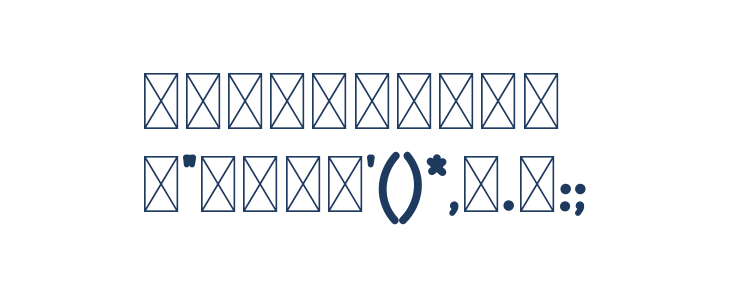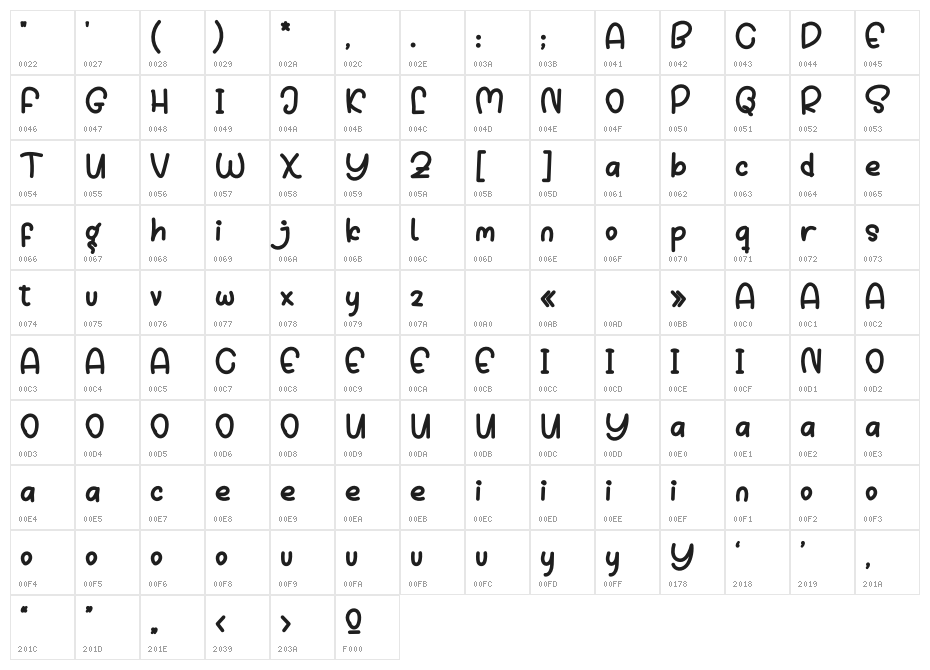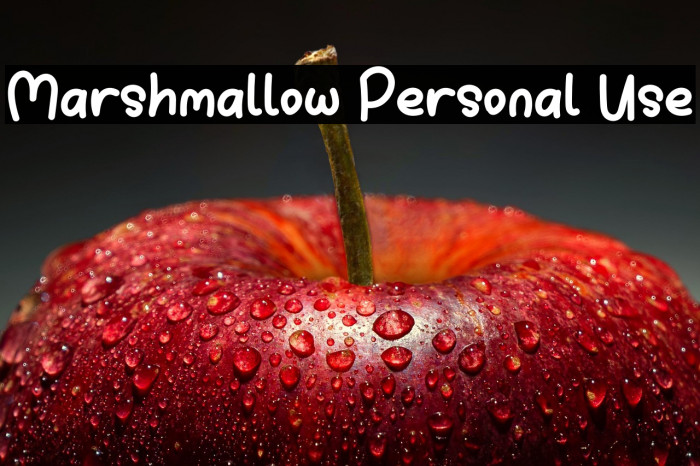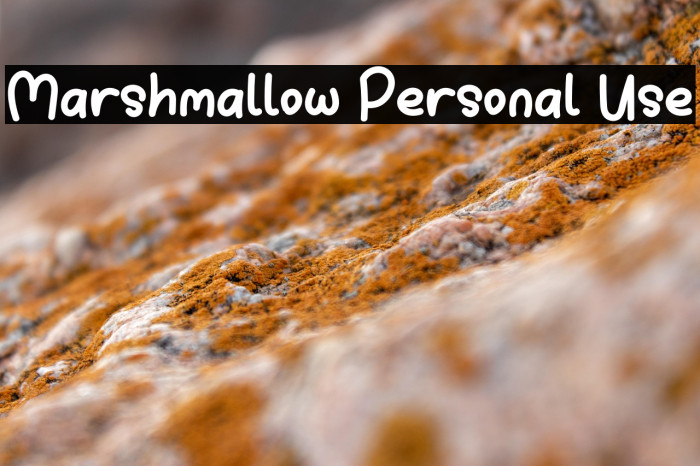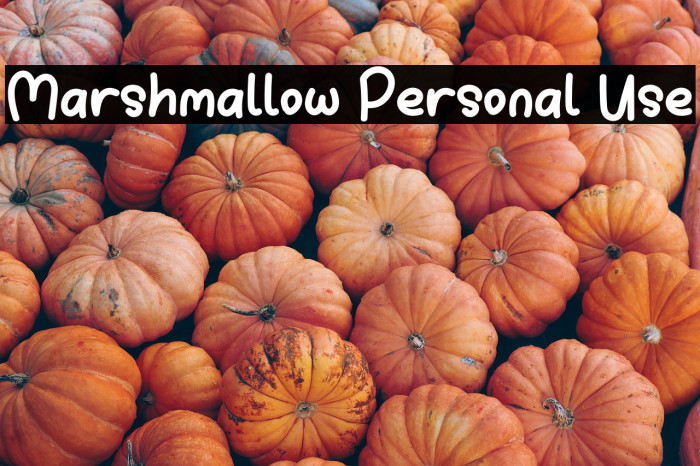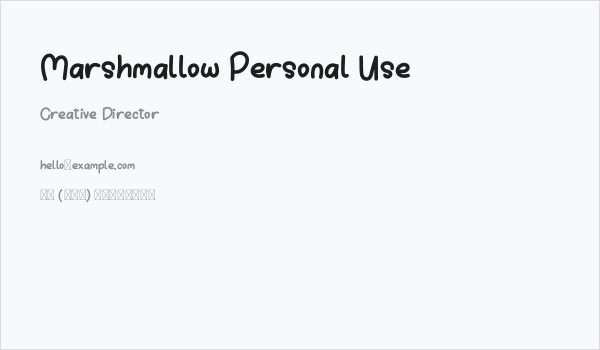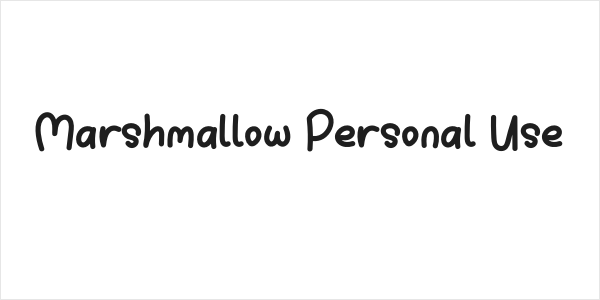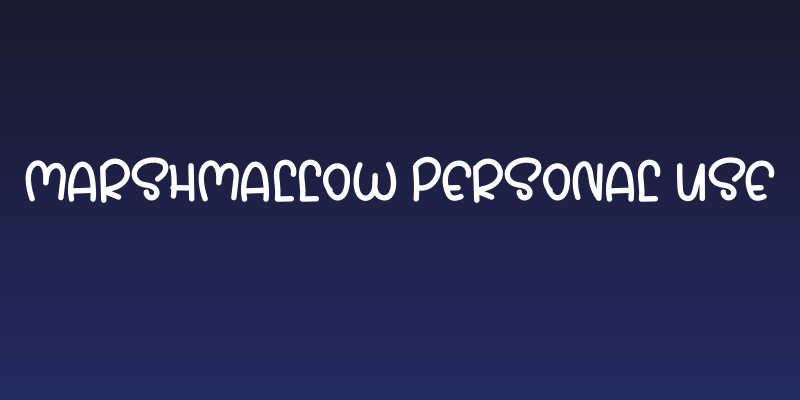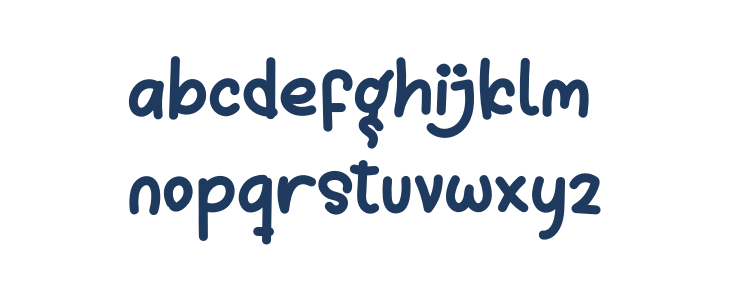
Marshmallow Personal Use Font
Marshmallow Personal Use Description
This playful and whimsical font features rounded, bubbly characters that evoke a sense of fun and lightheartedness. The uppercase and lowercase letters maintain a consistent style, with smooth curves and a slightly irregular baseline that adds to its charm. The font's bold weight and medium contrast make it stand out, while the character spacing is relatively tight, enhancing its cohesive appearance. The unique style of the letters, particularly the lowercase 'g' and 'y', adds a distinctive touch, making it ideal for creative and informal projects.
| Overall Style | Whimsical |
| Proposed Projects | Perfect for children's books, playful branding, greeting cards, and party invitations. |